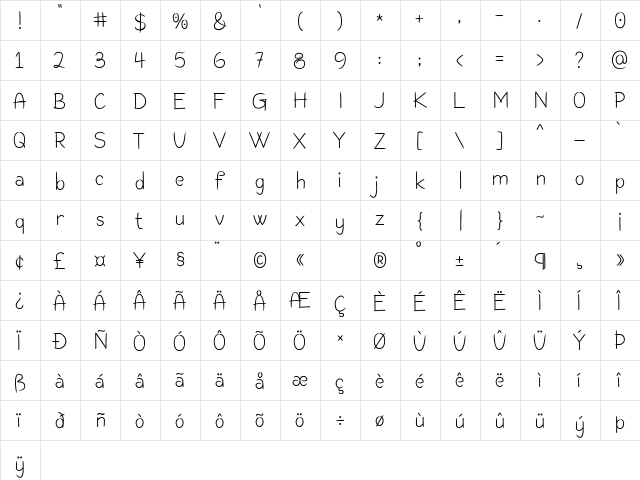
Coasta Regular
| Foundry | Fontalist |
| Designer | Andri Firmansyah |
Design Context for Coasta Typeface
Coasta offers clean, dependable letterforms without strong stylistic allegiance, making it a practical choice for designers who need flexibility.